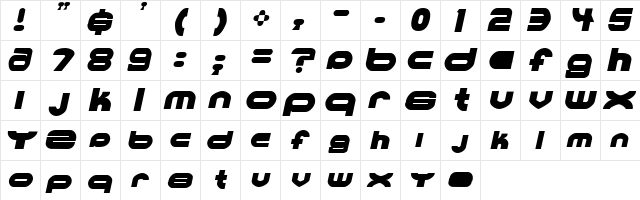
MKUltra Italic
Design Context for MKUltra Typeface
MKUltra is a composed and adaptable typeface that performs quietly and consistently across a wide range of design contexts. The dynamic lean of this cut emphasises speed and emphasis in any layout.
Pro Tip: Use MKUltra for emphasis, pull quotes, and subheadings where its slanted energy can add rhythm to the layout.